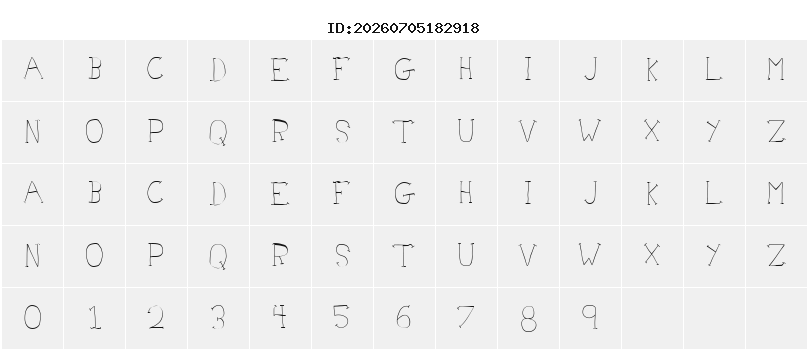
• Font Name: Doctor Azul
• Font ID: Frog: Doctor Azul
• Full Font Name: Doctor Azul
• Designer: Tom Murphy 7
• Manufacturer: [Divide By Zero] Fonts
• Description: Created by Tom Murphy 7. This font is thin and linedrawn, with little tilty serifs... Just look at it. [Divide By Zero] fonts: http://members.aol.com/vroomfonde/ttf/